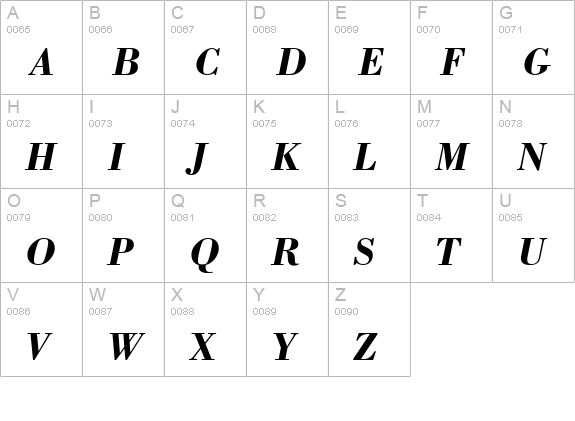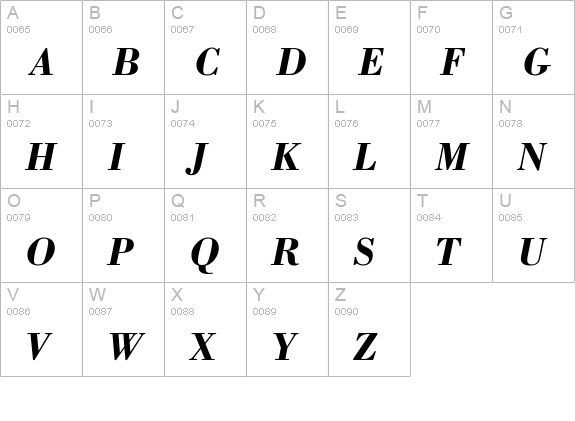
Bodoni SSi Bold Italic is a strong, high-contrast, italic variant in the Bodoni typeface family \xE2\x80\x94 well suited to headlines, attention-grabbing titles, and strong calls-to-action.
Bodoni SSi Bold Italic font is a stunning and elegant typeface that exudes sophistication and modernity. Its bold strokes and italicized design make it perfect for adding a touch of luxury to any project. The sharp serifs and clean lines of Bodoni SSi Bold Italic create a sense of refinement and style, making it a versatile choice for both print and digital designs. What makes Bodoni SSi Bold Italic font even more appealing is that it is available for free download at FontsMarket.com. This means you can elevate your design projects with this beautiful and timeless font without having to spend a penny. Whether you're working on a branding project, editorial layout, or website design, Bodoni SSi Bold Italic font is sure to make a statement and leave a lasting impression. Download it today and experience the beauty and sophistication of this exquisite typeface.